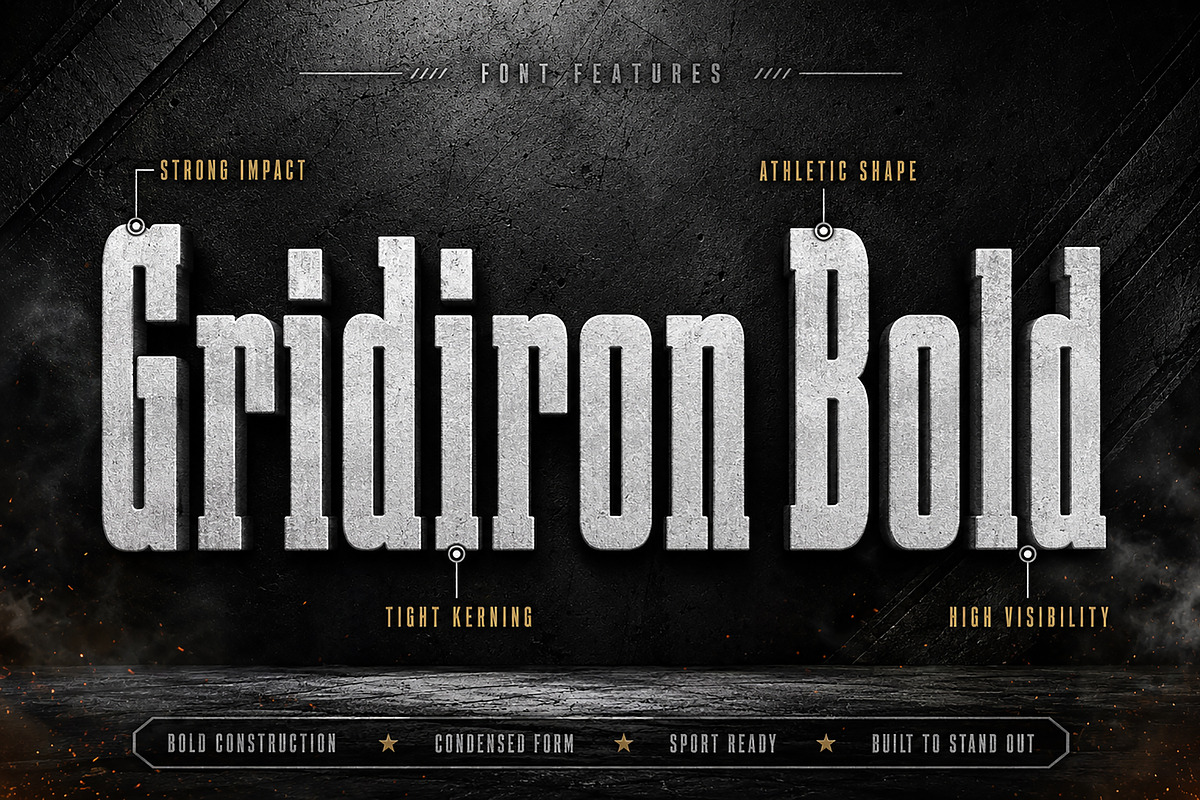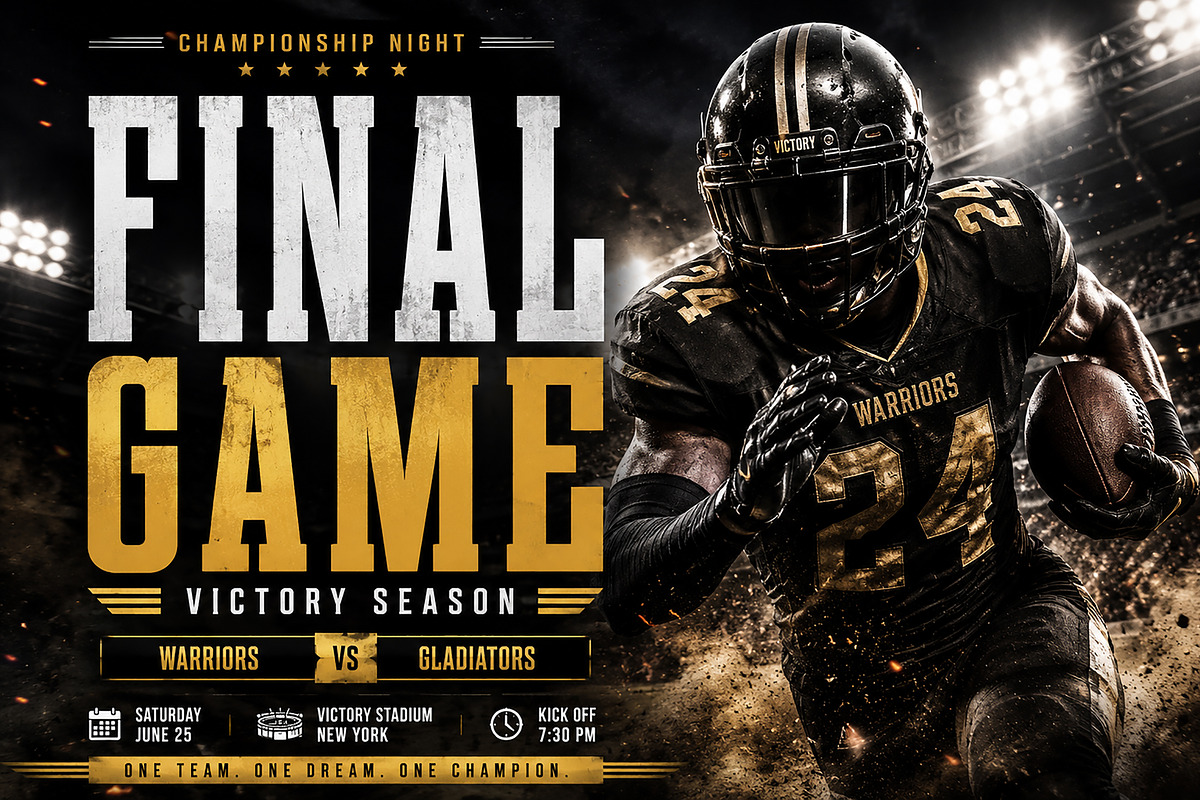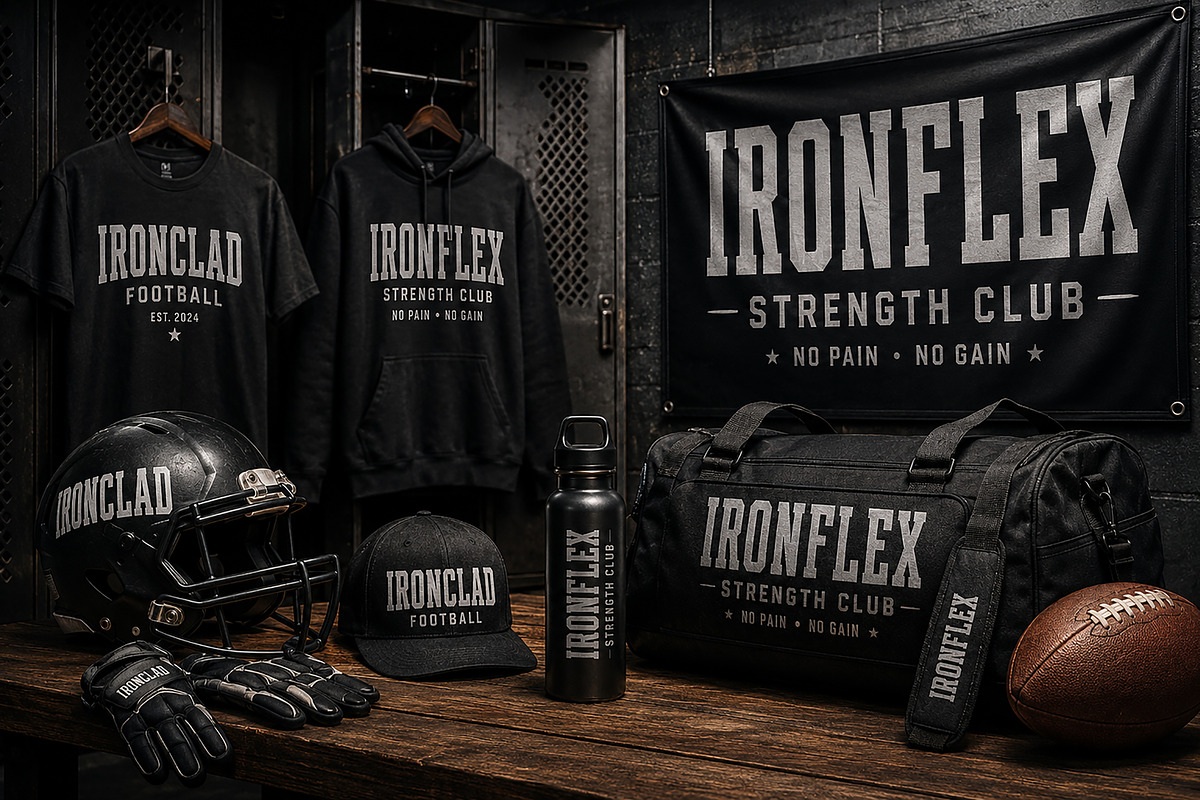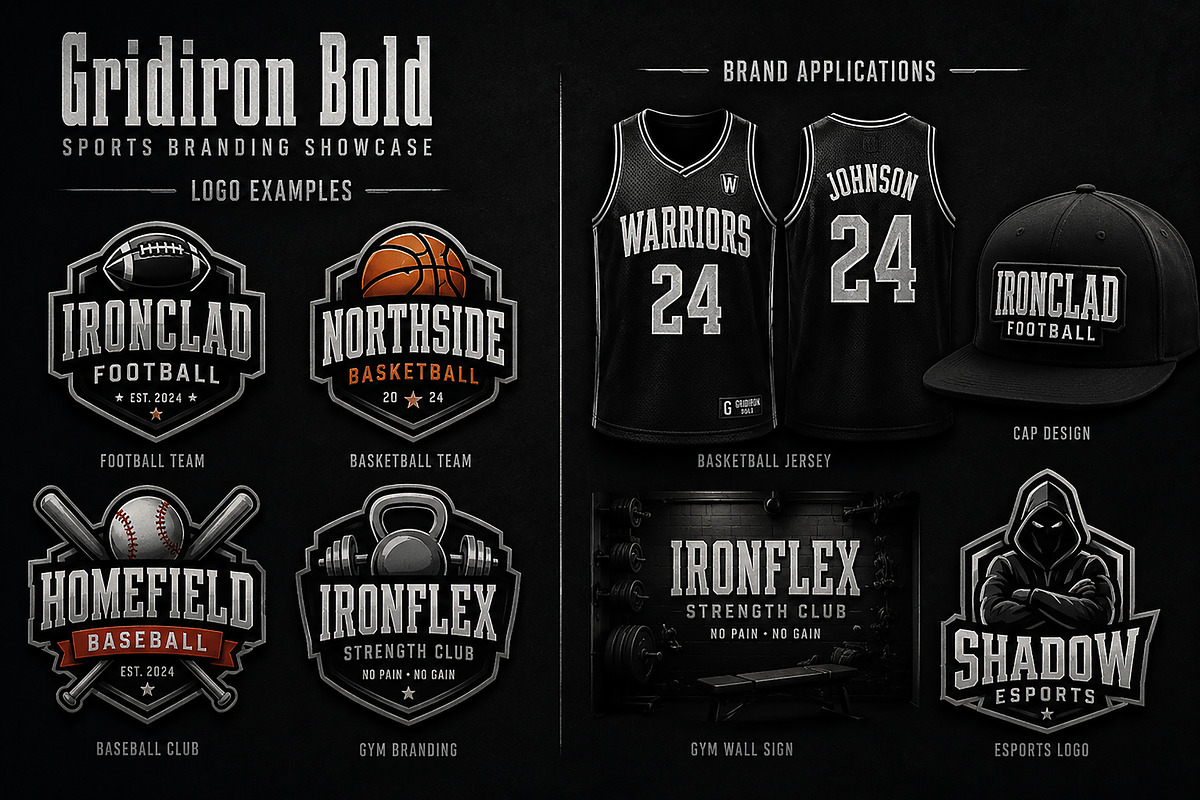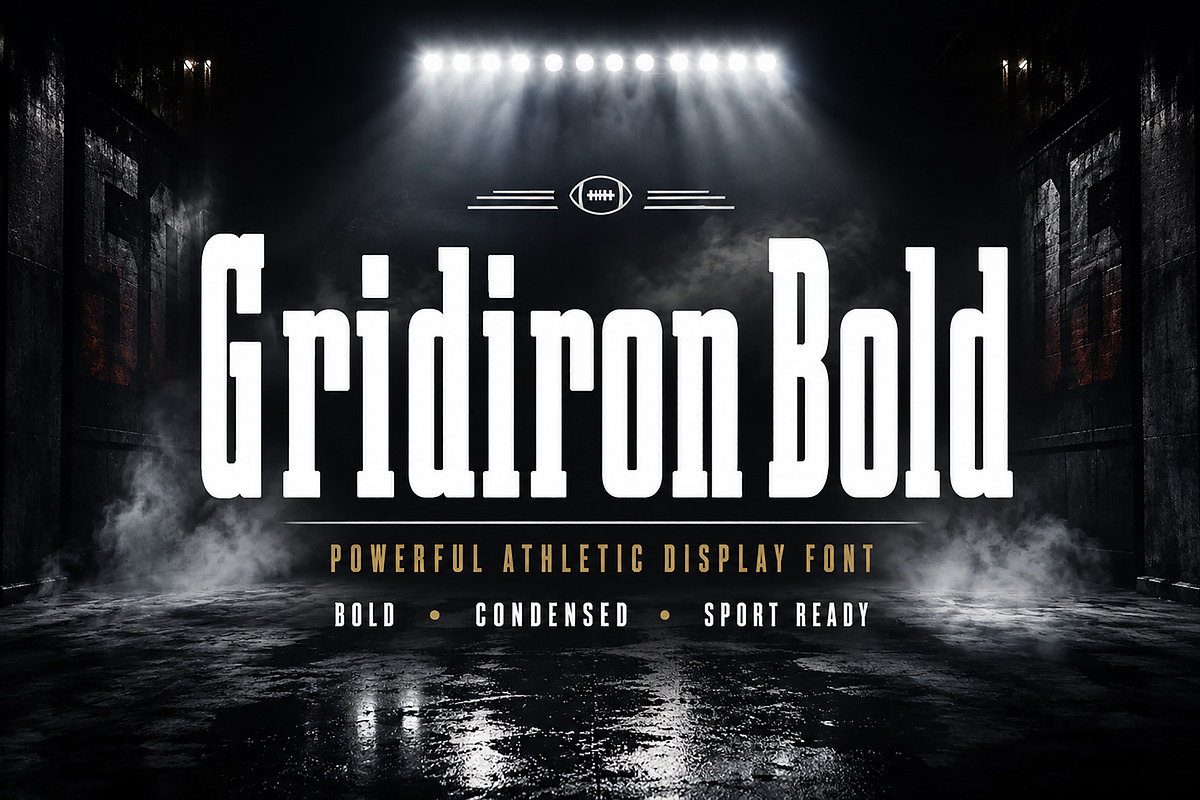
Gridiron Bold
Gridiron Bold is a powerful athletic display font built for high-impact sports branding and competitive designs. With its bold condensed structure, sharp edges, and strong block construction, this typeface delivers energy, strength, and dominance in every letter.
Perfect for sports logos, team jerseys, championship posters, gym branding, esports graphics, merchandise, apparel, and bold headline designs. Its tall, narrow shape makes it ideal for creating aggressive and professional layouts with maximum visibility.
Whether you're designing for football, basketball, baseball, fitness brands, or modern sports campaigns, Gridiron Bold gives your work a strong and unstoppable presence.
Sports Logos
Team Jerseys
Championship Posters
Gym Branding
Esports Designs
Merchandise & Apparel
Athletic Headlines
Event Flyers
Mascot Branding
Social Media Sports Graphics
Bring power, speed, and championship energy to your next project with Gridiron Bold.